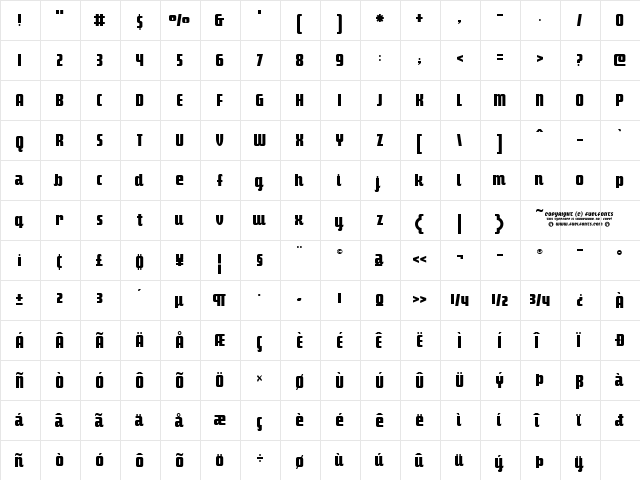
Makimango Regular
Design Context for Makimango Typeface
Makimango is a composed and adaptable typeface that performs quietly and consistently across a wide range of design contexts.